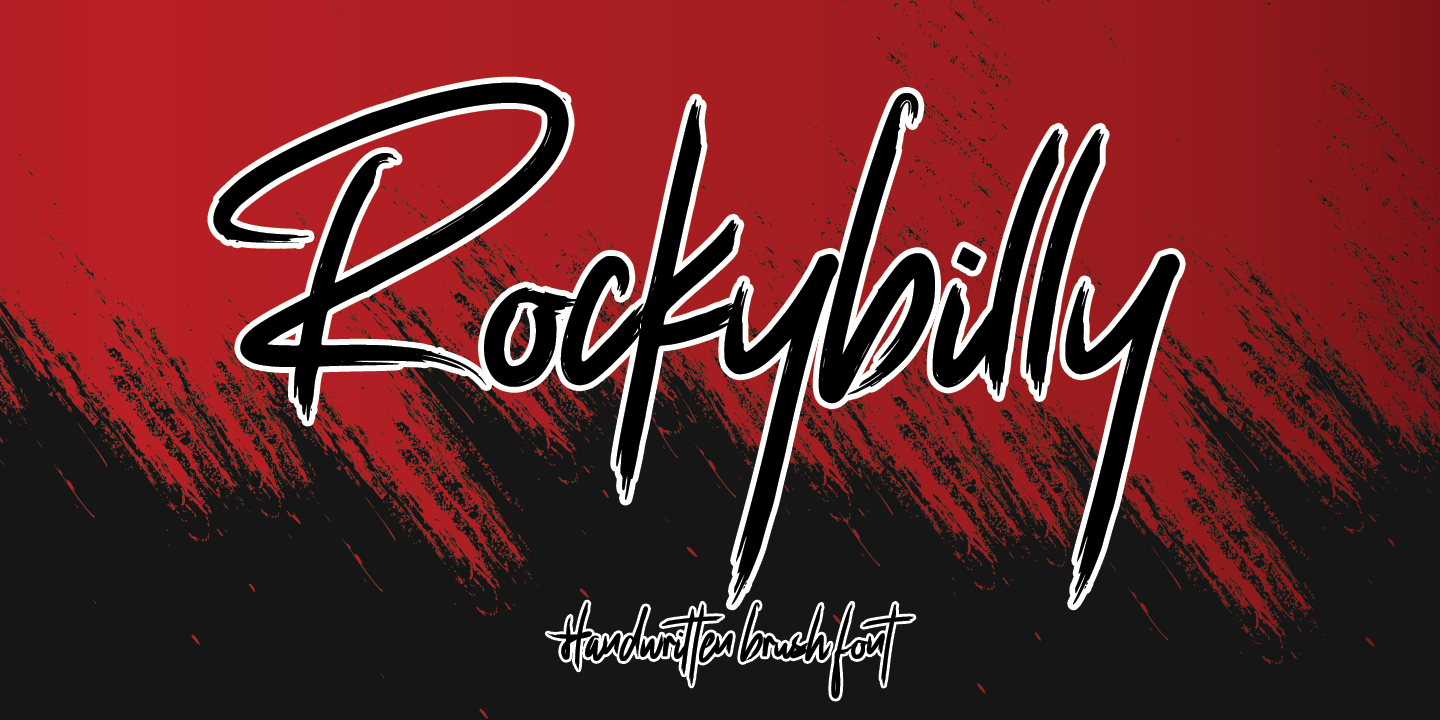
Rockybilly Font Free Download – A Rough & Rugged Typeface with Rebel Attitude
Unleash your inner outlaw with Rockybilly Font Free Download, a distressed display font that blends vintage Americana with raw, rock-and-roll edge. Perfect for motorcycle clubs, tattoo parlors, and retro brands, this font delivers authentic rebel character with every letter.
Why Rockybilly Font Stands Out
1. Authentic Vintage Features
Heavy distress and ink bleed textures
Irregular baseline for hand-printed look
Western-meets-rockabilly style
Designer's Rebel Tips
48pt+ for full impact
Works best with tight tracking
Ideal for one-word statements